Choosing from bold serif fonts for powerful display designs starts with the job your typography must do. Consider the words, their final size, and the mood of the project. The options below are organized to help you compare useful directions before testing candidates in your own layout.
How to evaluate the options
Set the real headline, name, or label in each candidate. Check legibility at the final size, compare the capitals and repeated letters, and leave enough room for decorative details. Use a quieter companion font for long descriptions and other supporting text.
| Font | Good starting point |
|---|---|
| Strong Desire Font | headlines, posters |
| Helvers Font | logos, branding |
| Sanggar Font | branding, business cards |
| Erstoria Font | headlines, posters |
| Bolde Luxe Font | fashion branding, beauty branding |
| Glypster Font | logos, posters |
| Antigua Font | branding, packaging |
| Emerge Font | posters, magazine covers |
| Morphins Font | branding, posters |
| Holen Vintage Font | posters, logos |
| Puppet Master Font | posters, editorial designs |
| Gluttoner Font | logos, posters |
| Hartens Font | branding, logos |
| Endrip Faceo Duo Font | branding, packaging |
| Lugife Font | invitations, wedding designs |
Font picks
Strong Desire Font for headlines
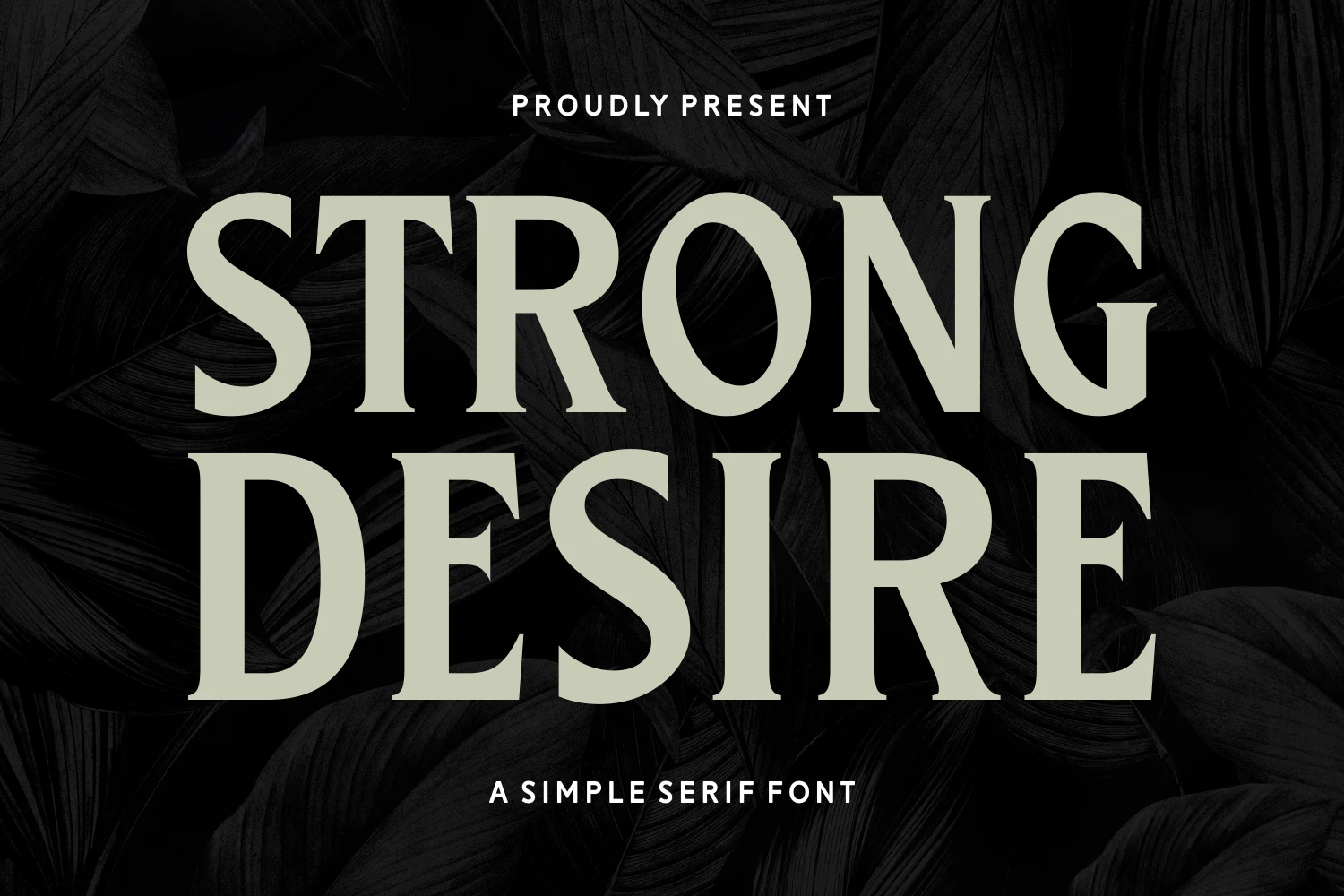
Strong Desire Font is worth testing for headlines, posters, and branding. Look for serif details and display-focused letterforms when comparing it with other options. Inspect fine details before using it in small print.
Helvers Font for logos
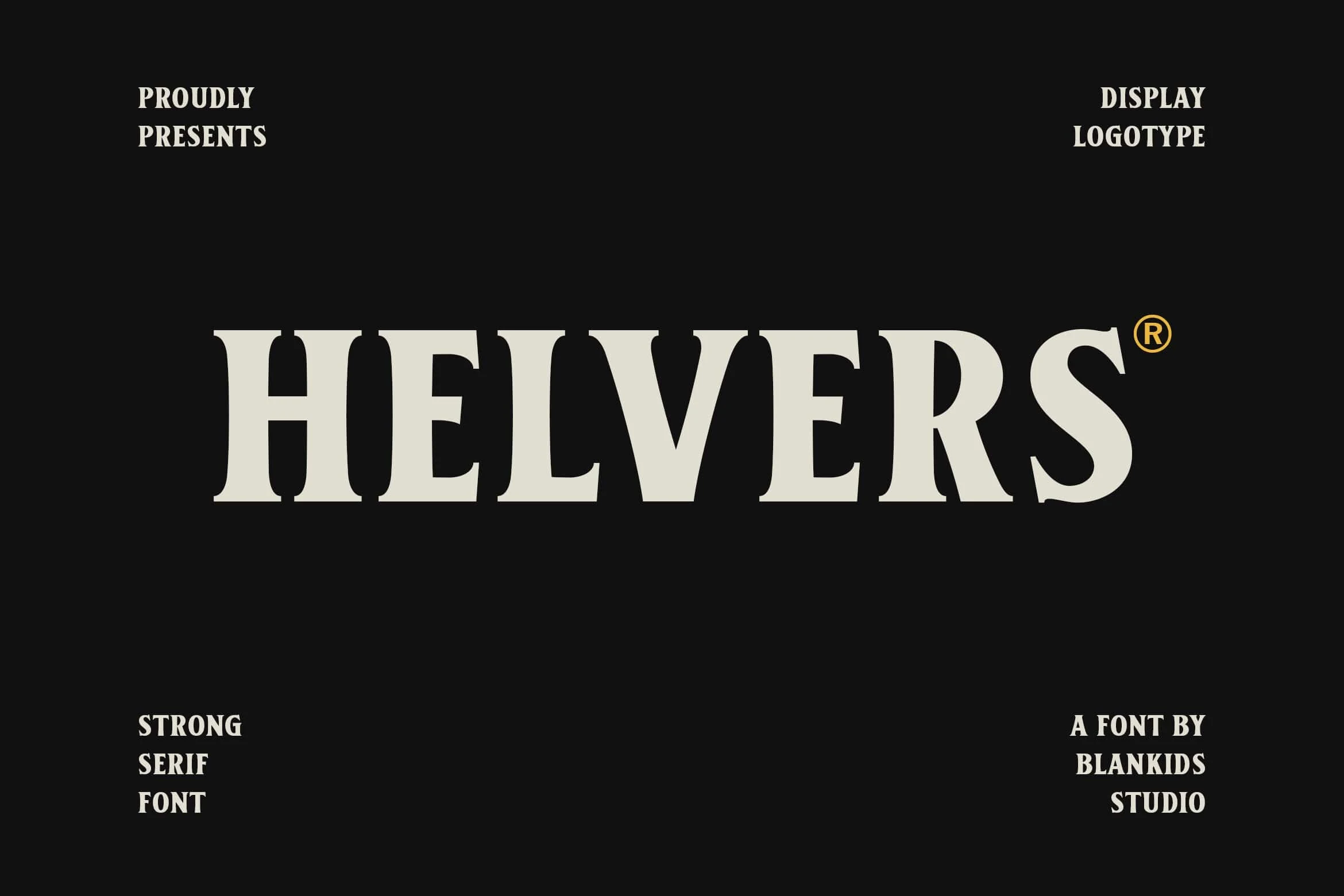
For logos, branding, and headlines, consider Helvers Font. Its design draws on serif details and display-focused letterforms. Inspect fine details before using it in small print.
Sanggar Font for branding
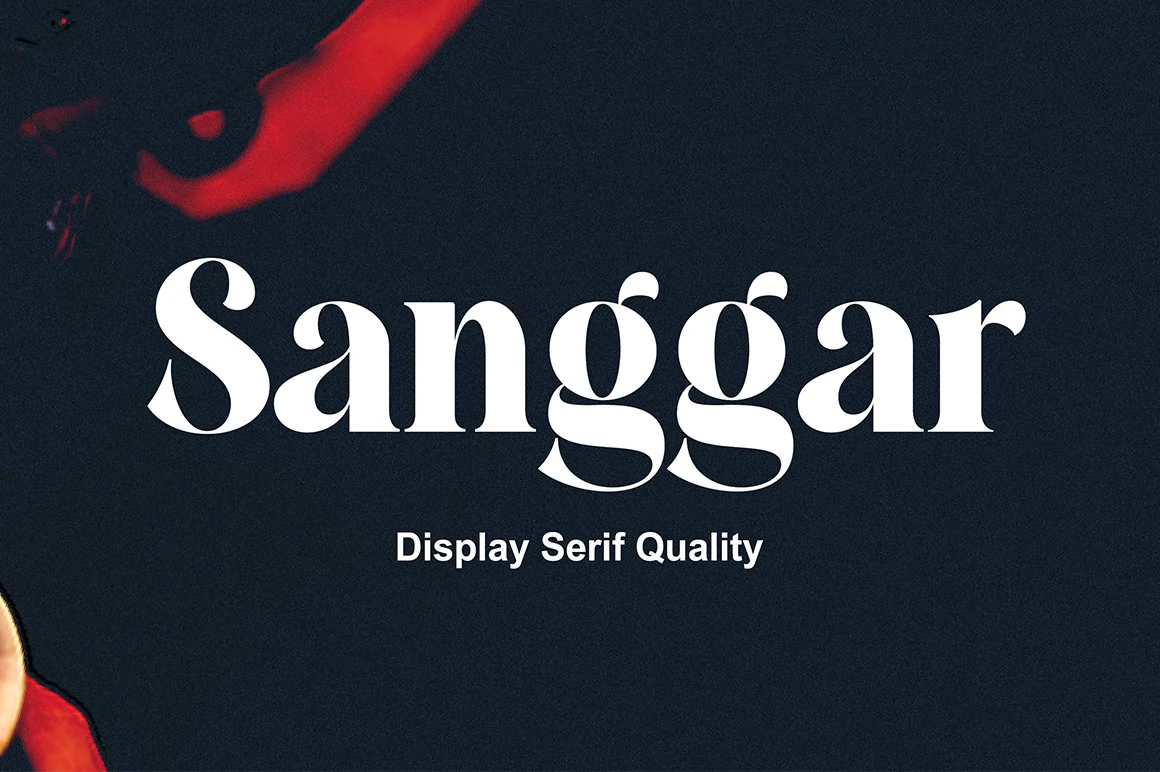
Sanggar Font can anchor branding, business cards, and book covers. The main visual cues are strong contrast between thick and thin strokes and rounded letter shapes. Check the thinnest strokes at the final display size.
Erstoria Font for headlines
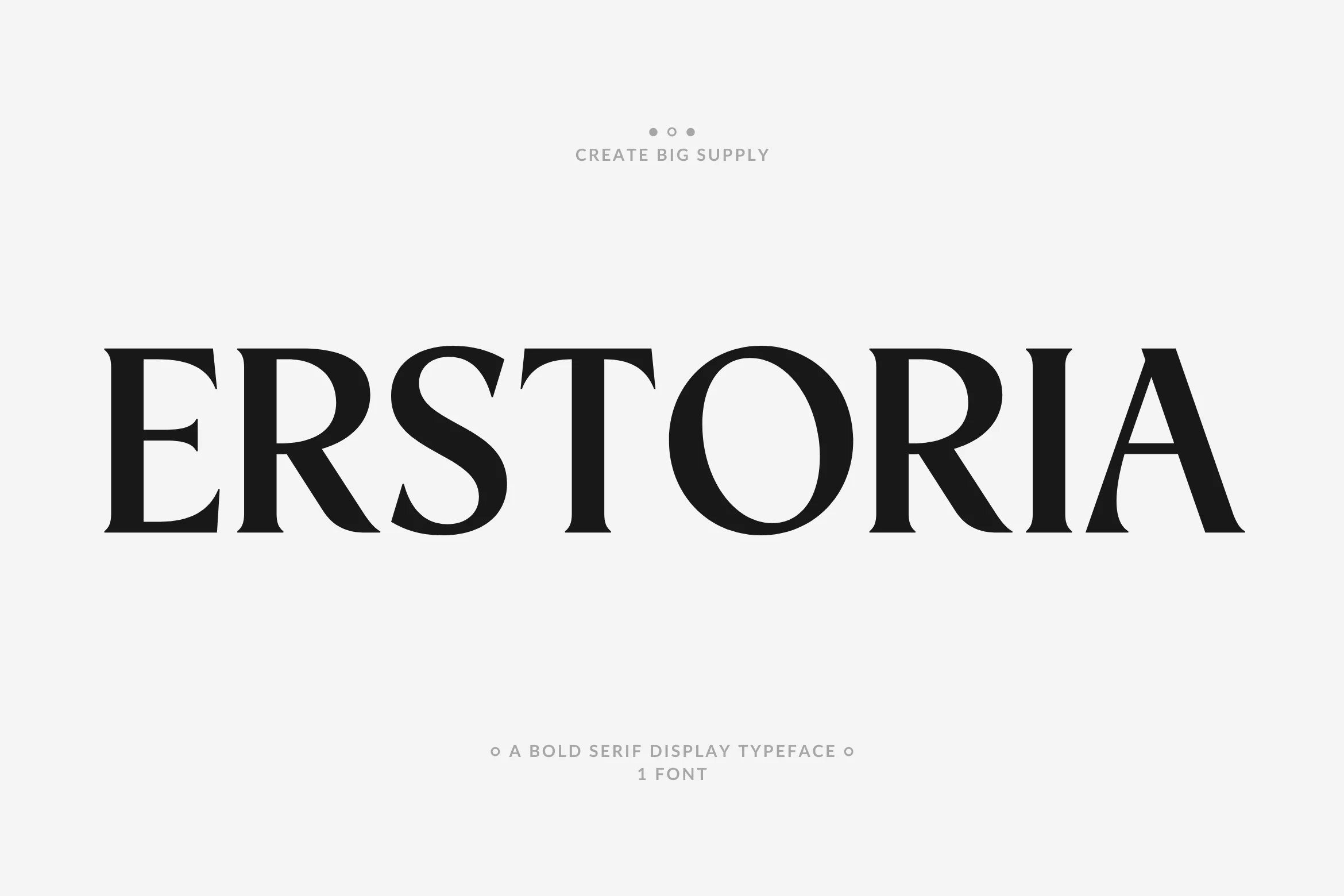
Erstoria Font is worth testing for headlines, posters, and branding. Look for serif details and display-focused letterforms when comparing it with other options. Inspect fine details before using it in small print.
Bolde Luxe Font for fashion branding
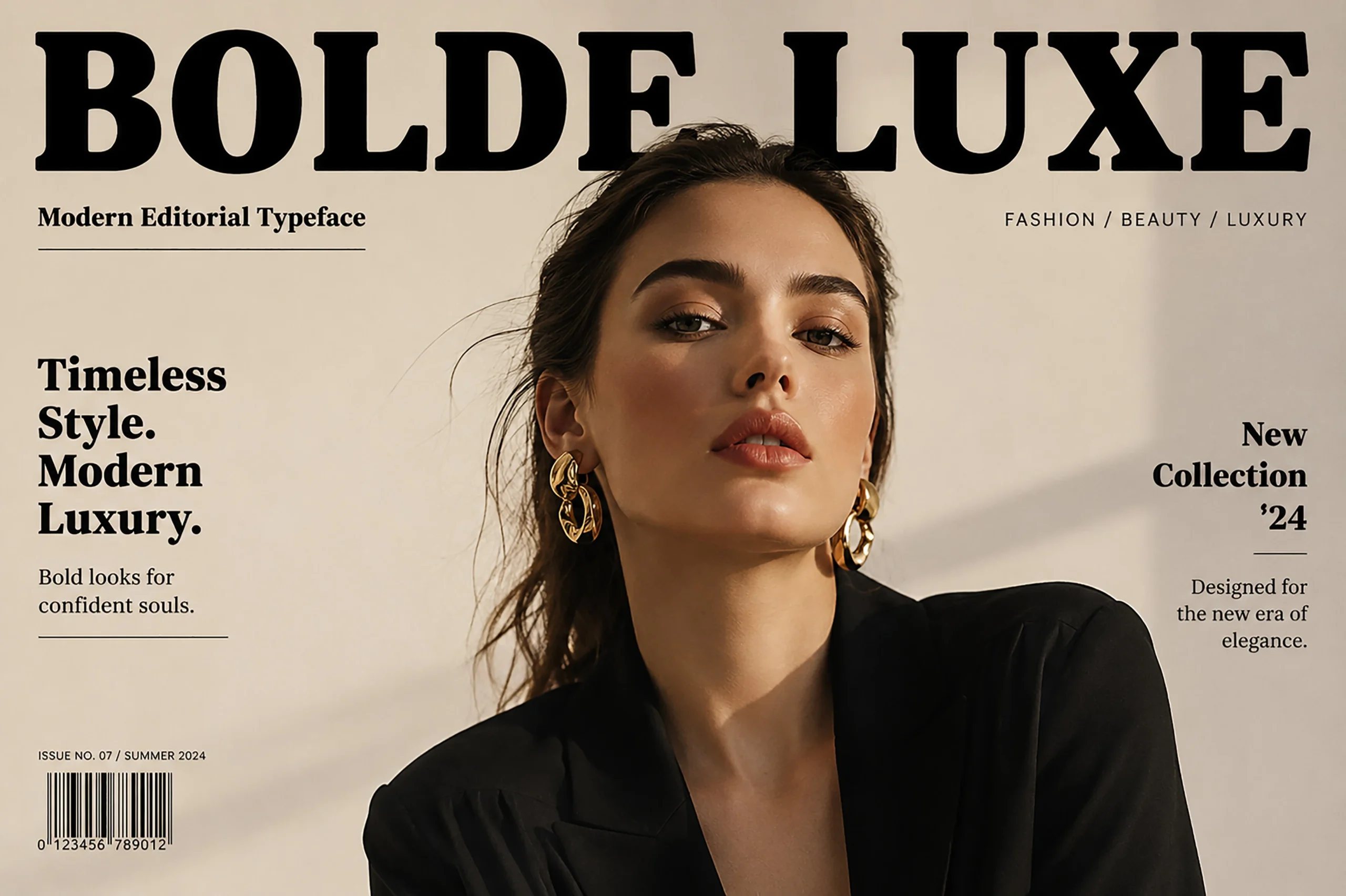
For fashion branding, beauty branding, and editorial designs, consider Bolde Luxe Font. Its design draws on serif details. Inspect fine details before using it in small print.
Glypster Font for logos
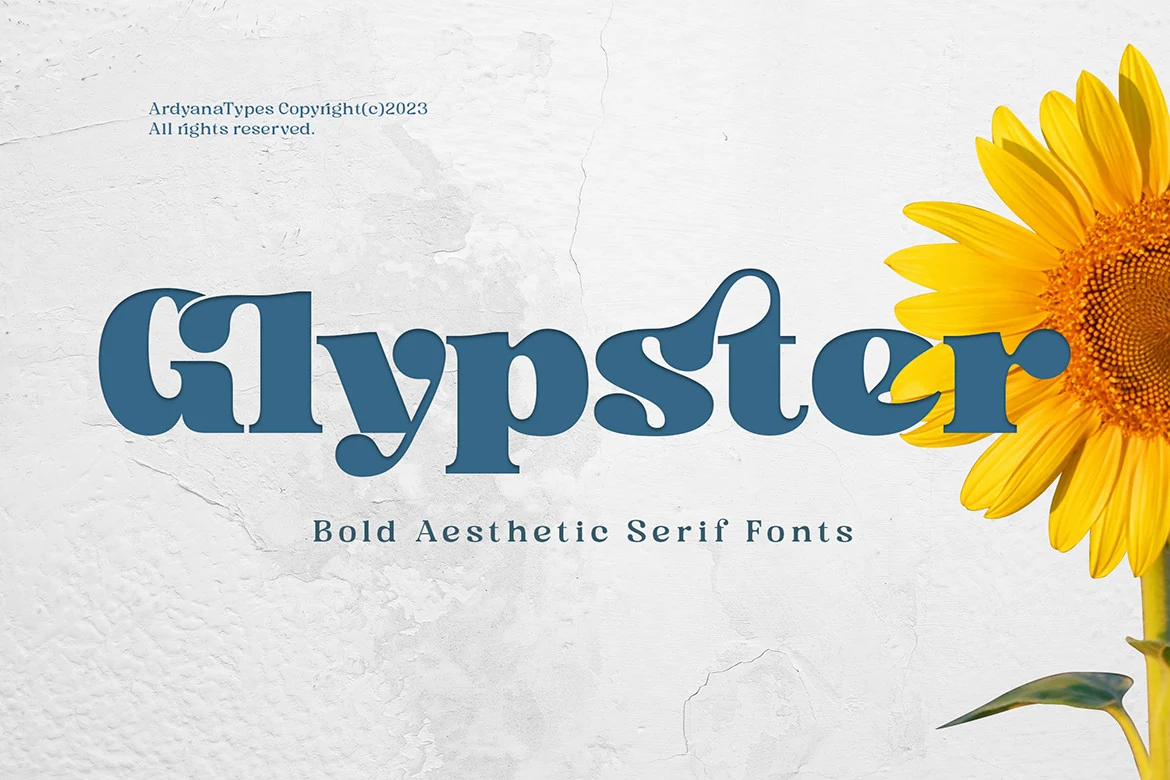
Glypster Font can anchor logos, posters, and business cards. The main visual cues are rounded letter shapes and serif details. Try it at both headline and label size to judge its clarity.
Antigua Font for branding
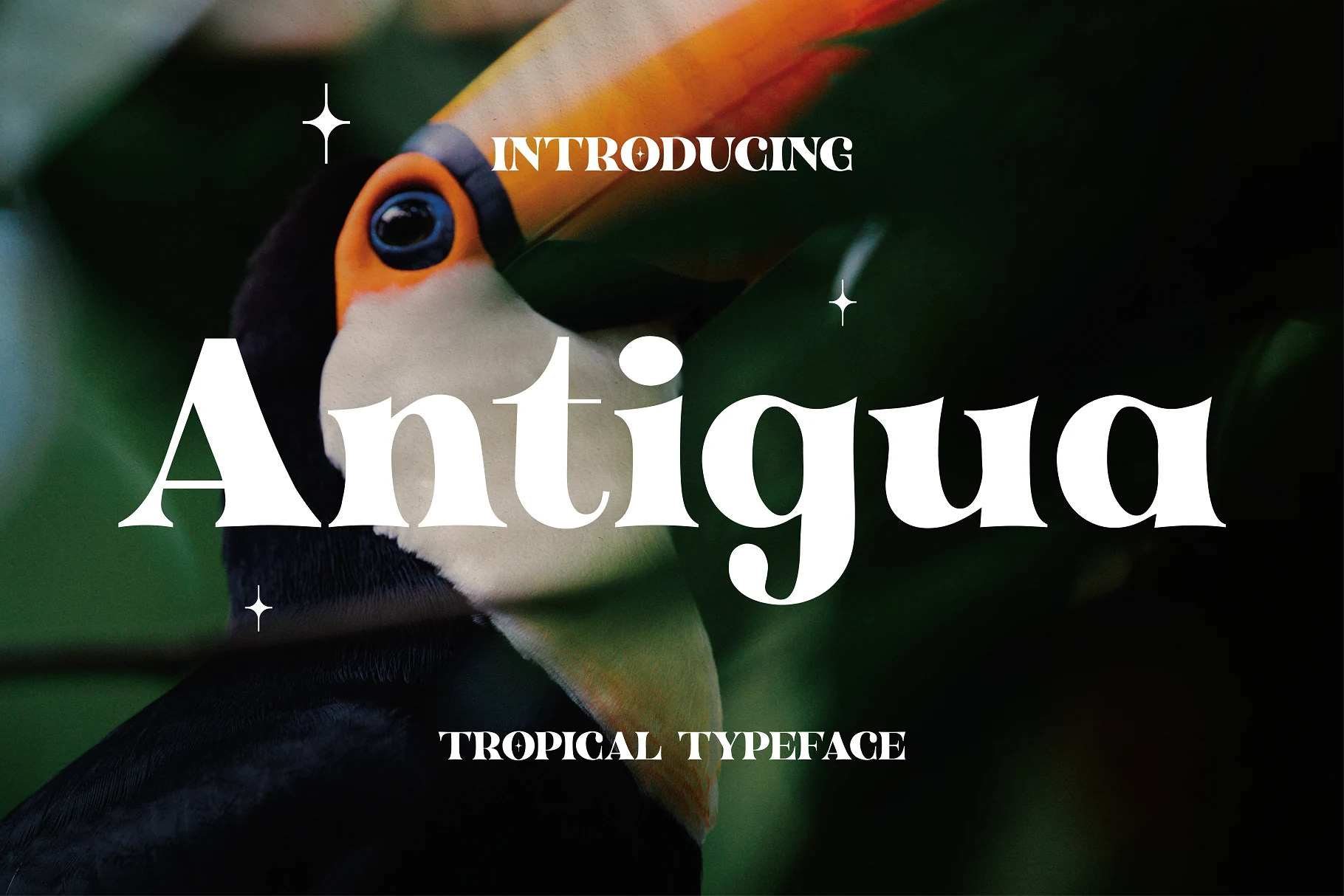
Antigua Font is worth testing for branding, packaging, and posters. Look for rounded letter shapes and serif details when comparing it with other options. Try it at both headline and label size to judge its clarity.
Emerge Font for posters
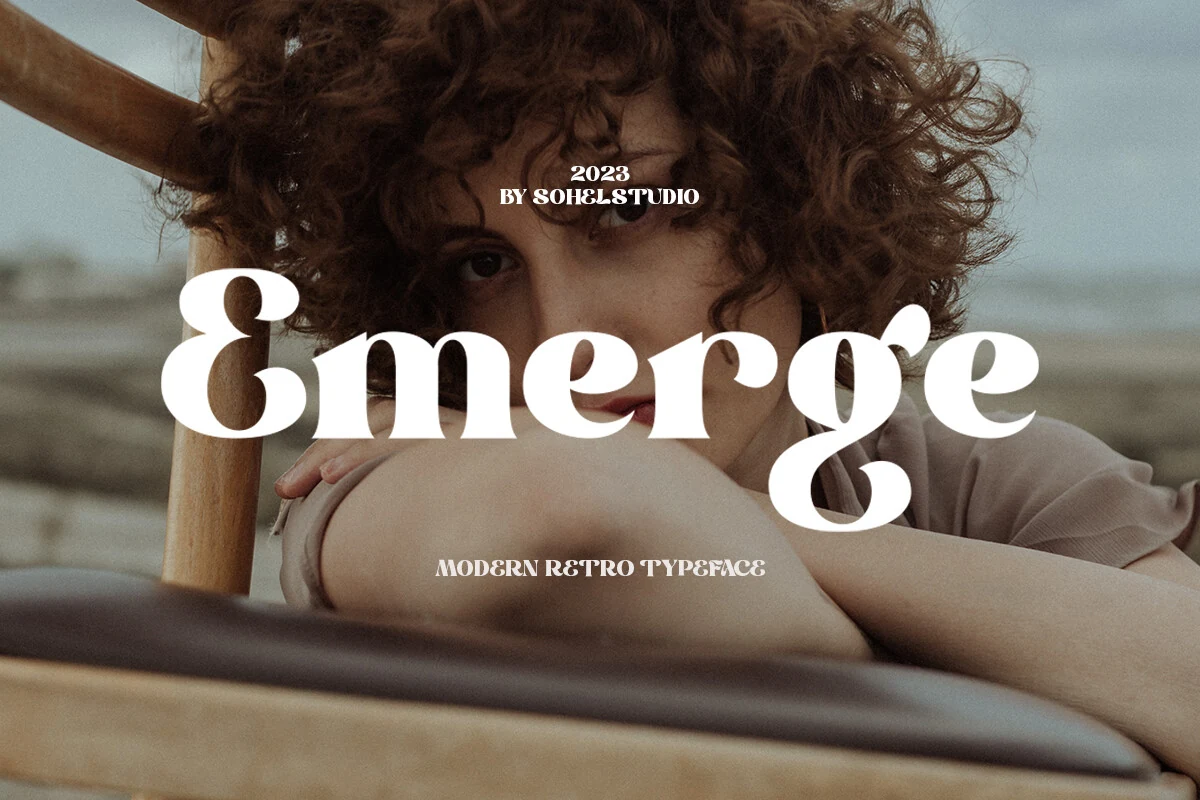
For posters, magazine covers, and logos, consider Emerge Font. Its design draws on rounded letter shapes and serif details. Try it at both headline and label size to judge its clarity.
Morphins Font for branding
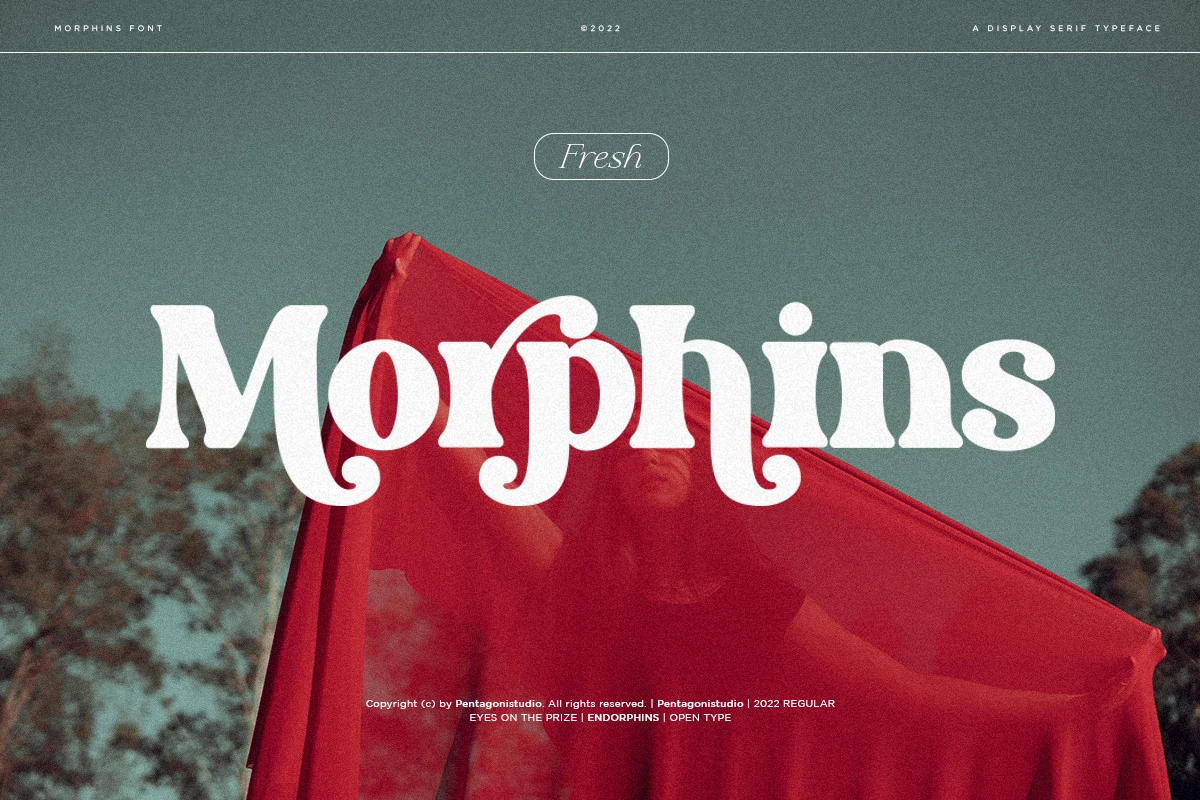
Morphins Font can anchor branding, posters, and social media graphics. The main visual cues are rounded letter shapes and serif details. Try it at both headline and label size to judge its clarity.
Holen Vintage Font for posters
Holen Vintage Font is worth testing for posters, logos, and packaging. Look for rounded letter shapes and serif details when comparing it with other options. Try it at both headline and label size to judge its clarity.
Puppet Master Font for posters
For posters, editorial designs, and branding, consider Puppet Master Font. Its design draws on strong contrast between thick and thin strokes and serif details. Check the thinnest strokes at the final display size.
Gluttoner Font for logos
Gluttoner Font can anchor logos, posters, and signage. The main visual cues are serif details and a retro mood. Inspect fine details before using it in small print.
Hartens Font for branding
Hartens Font is worth testing for branding, logos, and invitations. Look for strong contrast between thick and thin strokes and serif details when comparing it with other options. Check the thinnest strokes at the final display size.
Endrip Faceo Duo Font for branding
For branding, packaging, and editorial designs, consider Endrip Faceo Duo Font. Its design draws on serif details and flowing script forms. Inspect fine details before using it in small print.
Explore Endrip Faceo Duo Font →
Lugife Font for invitations
Lugife Font can anchor invitations, wedding designs, and social media graphics. The main visual cues are decorative swashes and serif details. Use flourishes selectively around short words or names.
Final checks before using a font